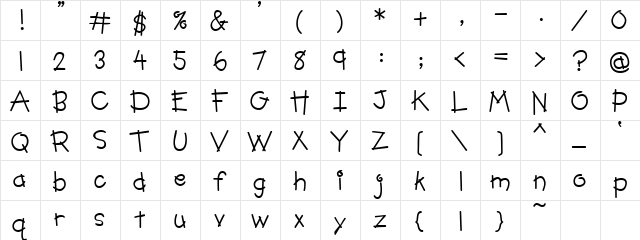
PC Childish Regular
Design Context for PC Childish Typeface
PC Childish trades formality for fun, with bouncy, characterful letterforms that bring warmth and energy to any project.
Great for children's books, toy packaging, family event branding, and casual consumer-facing design.
Font Pairing: Pairs well with a rounded or humanist sans for body copy, maintaining the friendly tone without relying on PC Childish to carry extended reading.
Pro Tip: Avoid using PC Childish for long passages of text — it works best for headlines, labels, and short calls to action.